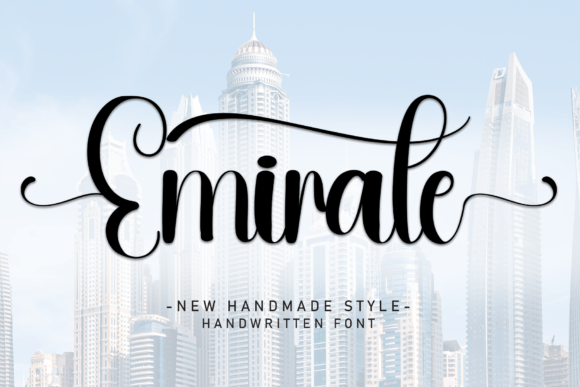
Dive into the enchanting world of Emirate Font, a script font that transports you to a realm of elegance and charm. With its graceful strokes and whimsical curves, Emirate Font is an artistic masterpiece that breathes life into your creative endeavors.
Unlock the boundless potential of Emirate Font, a script font that captivates the essence of Christmas. This font is a celebration of joy, laughter, and the warmth of the holiday season. Adorn your Christmas cards, invitations, and designs with the alluring charm of Emirate Font, and spread the magic of Christmas far and wide.
Picture yourself creating stunning wedding invitations that exude romance and elegance. The flowing lines of Emirate Font dance across the page, adding a touch of sophistication to your special day. Your guests will be captivated by the beauty of this font, ensuring that your wedding is an unforgettable occasion.
Unleash your creativity with Emirate Font, the perfect font for handwritten notes, heartfelt letters, and personal touches. Let your words flow effortlessly onto the page, carried by the graceful curves of this font. Your sentiments will take on a new level of charm and sincerity, leaving a lasting impression on the recipients of your handwritten expressions.
Emirate Font is a dream come true for designers seeking a touch of whimsy and delight. This font adds a delightful spark to logos, branding materials, and packaging designs. Its playful nature captures the attention of customers, inviting them to explore your brand and products with a sense of curiosity and excitement.
Join the ranks of creative visionaries who have discovered the magic of Emirate Font. This font is your passport to a world of endless possibilities, where your imagination knows no bounds. Experience the joy of creating designs that captivate, inspire, and leave a lasting impression on all who encounter them.